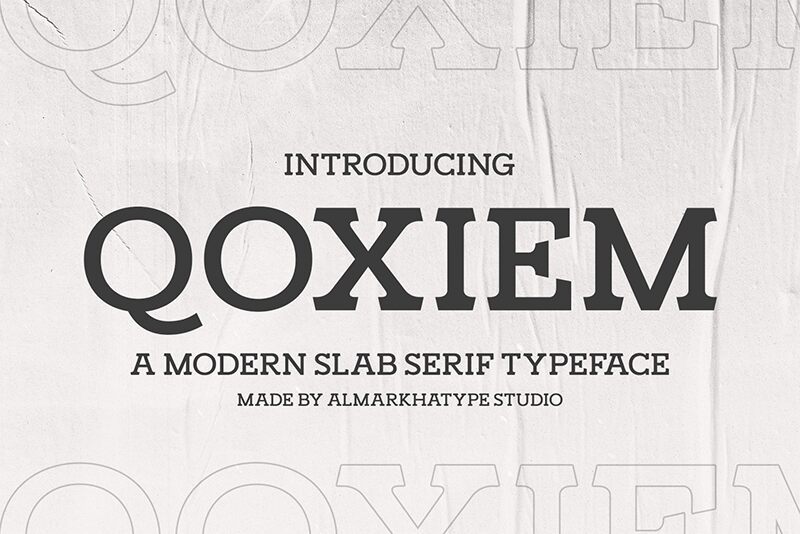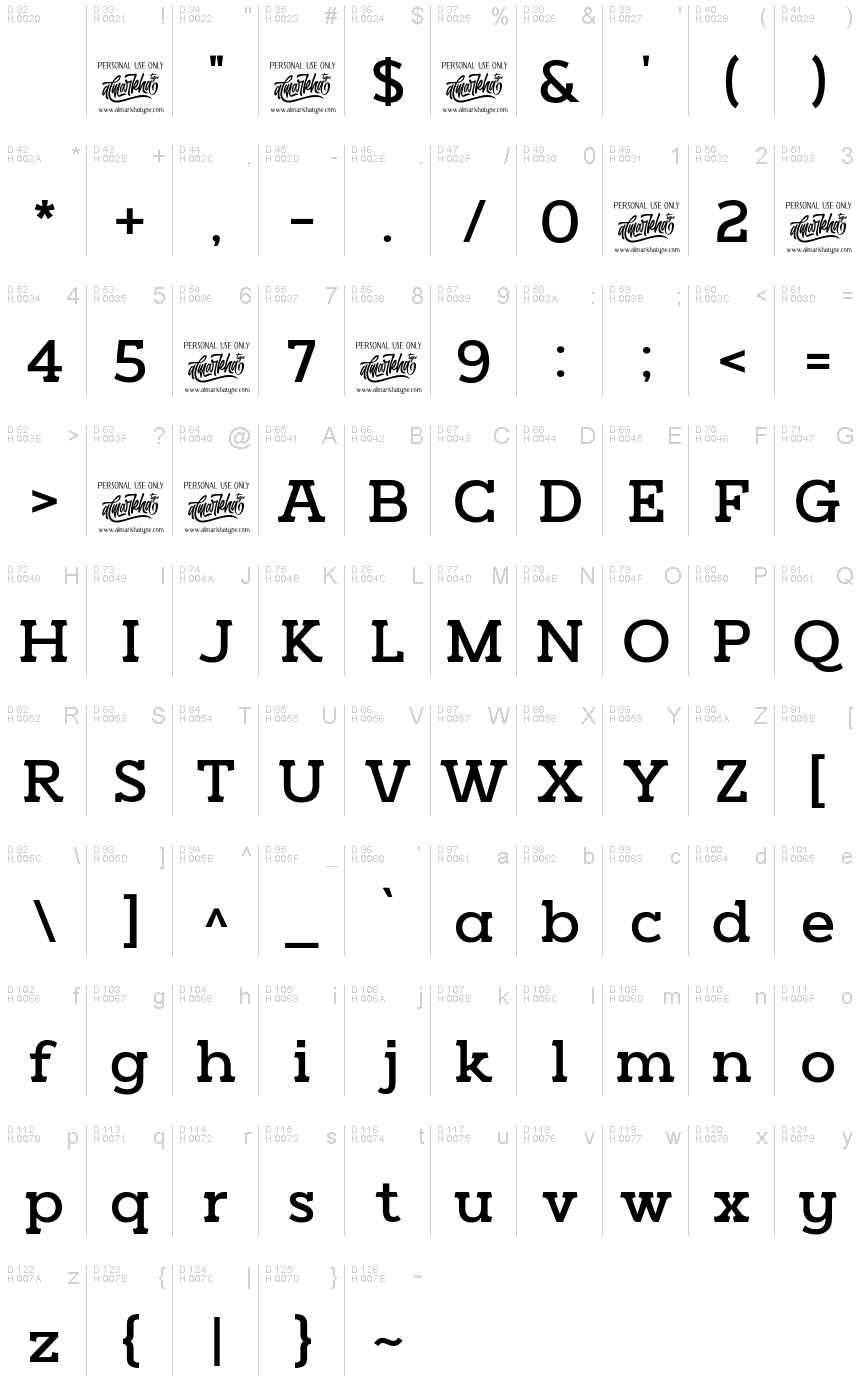
Qoxiem
Qoxiem, crafted by the creative minds at Alterzone Studio, is a serif font that boasts a semi-light weight and a semi-expanded width, offering an elegant yet modern aesthetic. Its distinct serifs and refined curves merge traditional charm with contemporary sophistication. The balanced structure of Qoxiem lends it a versatile quality that can grace everything from editorial headlines to sophisticated branding materials.
The font's semi-light weight ensures readability while maintaining an airy, graceful presence on the page. Its semi-expanded width provides Qoxiem with a friendly openness, inviting readers to engage with the text. This unique combination of characteristics makes Qoxiem not only visually appealing but also highly functional for various design applications.
Ideal for designers seeking to inject personality into their projects without sacrificing elegance, Qoxiem's style bridges the gap between classic serifs and modern sensibilities. Whether it's employed in print layouts, digital interfaces or creative visuals, this font is poised to add a touch of class and distinction to your creative endeavors.